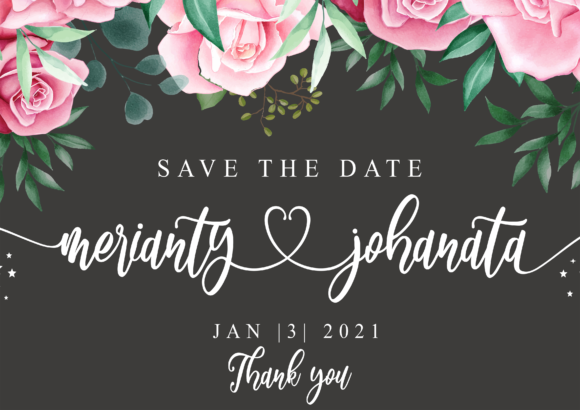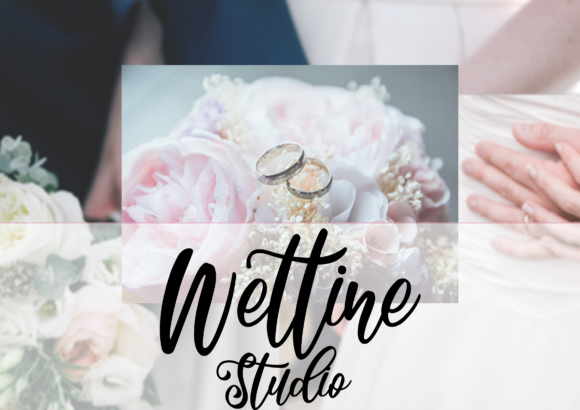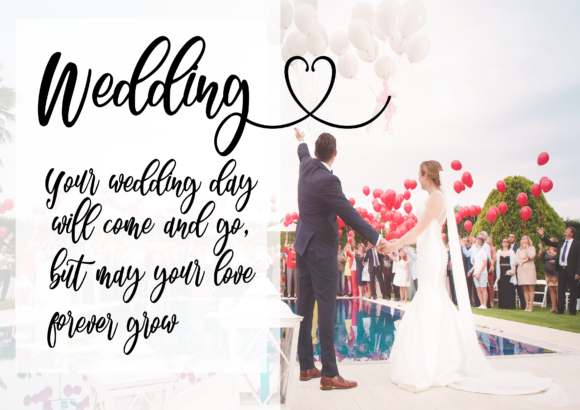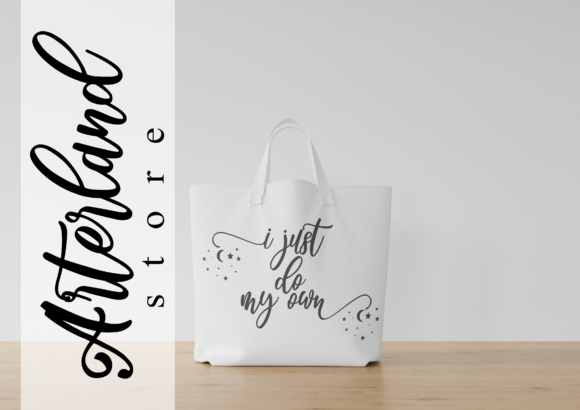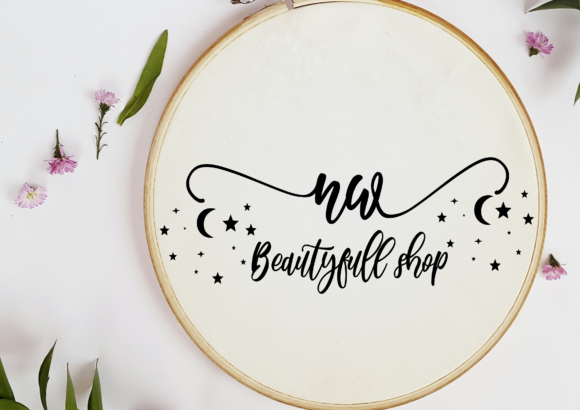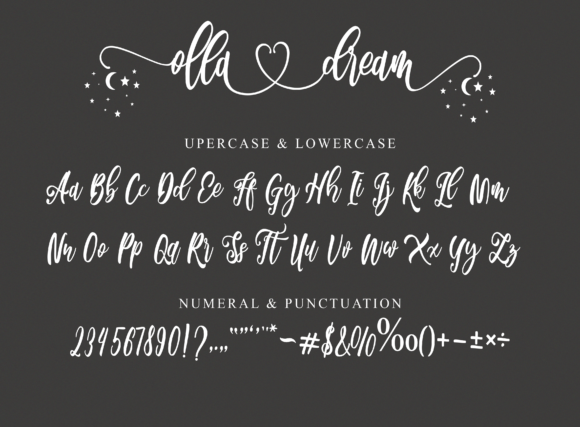
Introduction to Olla Dream Font
Olla Dream is a cute and casual handwritten font with an incredibly friendly feel.
It features gorgeous swashes and ligatures that make this script incredibly versatile Whether youโre looking for fonts for Instagram or calligraphy scripts for DIY projects, Olla Dream will turn any creative idea into a true piece of art.
Key Features of Olla Dream Font